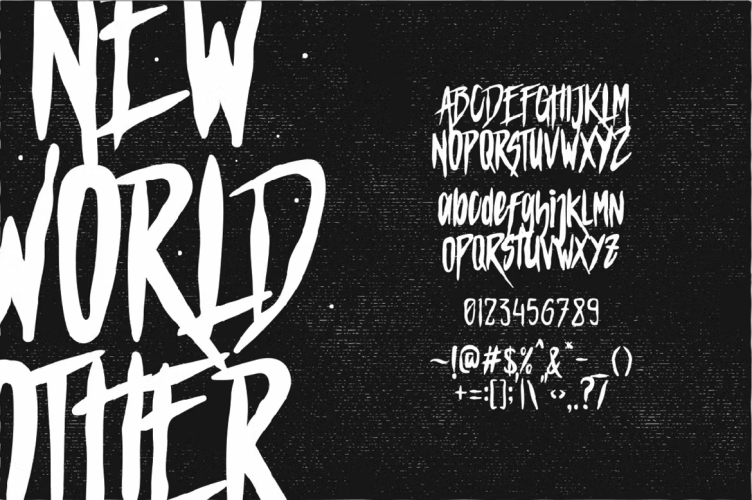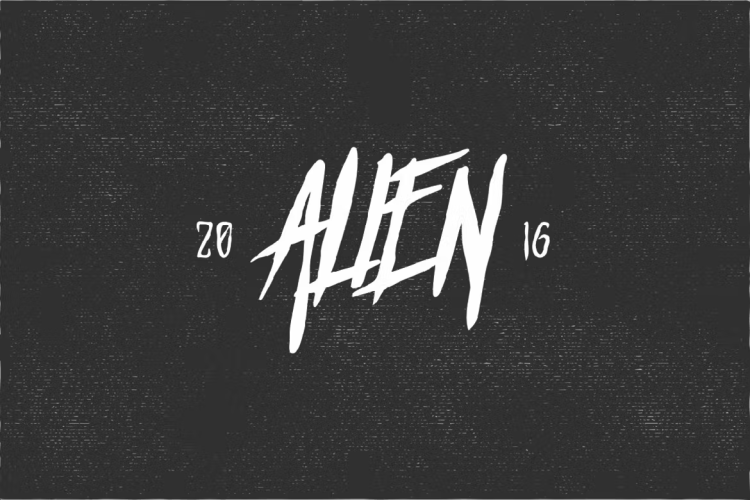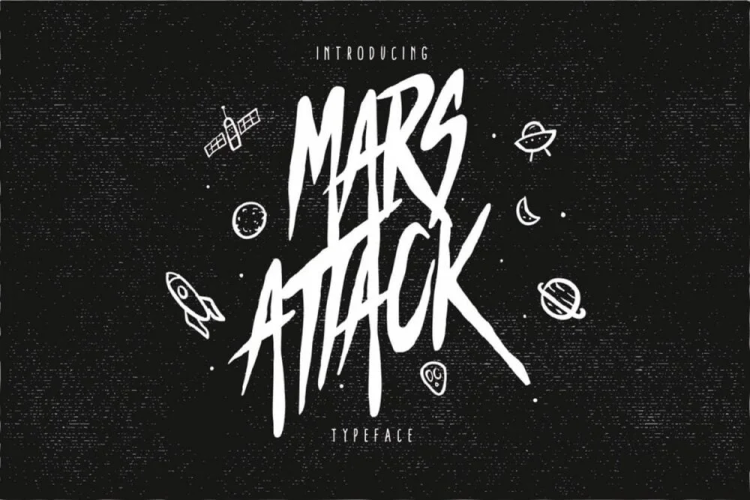
Mars Attack Font
Mars Attack Font can make it easier to convey the message in your design. Use for awesome display, labeling, clothing, movie screen, poster, movie title, gigs, album cov…
Mars Attack Font can make it easier to convey the message in your design. Use for awesome display, labeling, clothing, movie screen, poster, movie title, gigs, album covers, logos, and much more.
Where Mars Attack Font works best
Headlines and titles
Mars Attack Font has enough character to carry a headline on its own; set it large and keep the supporting text plain.
Brand and product names
Short strings are where this typeface is strongest — a name, a label, a cover line.
Social and video graphics
Set Mars Attack Font over a flat colour or a quiet photograph so the letterforms stay the focus.
What kind of work does Mars Attack Font suit?
It sits in the Typeface group and reads as branding, display, headlines, music. That makes it a candidate wherever those qualities help: headings, packaging, social graphics and brand work. Set it at the size you plan to use before deciding.